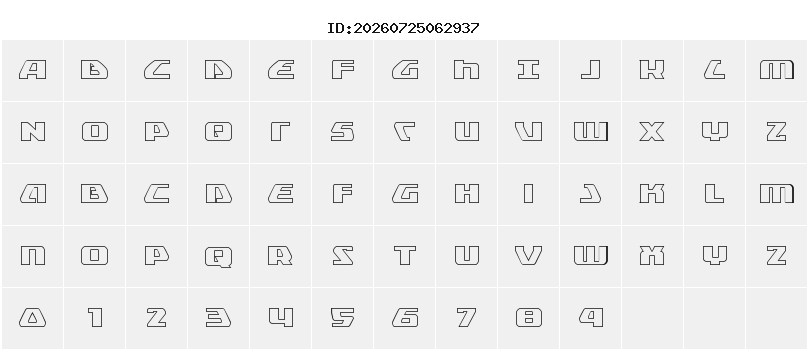
Global Dynamics Outline Preview
• Font Name: Global Dynamics Outline
• Full Font Name: Global Dynamics Outline
About Global Dynamics Outline.ttf
Global Dynamics Outline.ttf is a modern, elegant sans-serif font designed for ultimate readability and visual harmony. Perfect for branding, headlines, web design, and print materials.